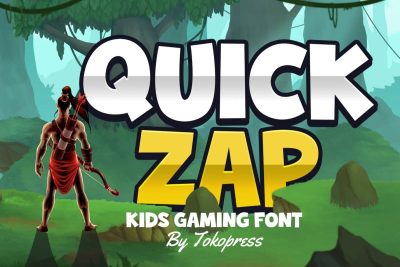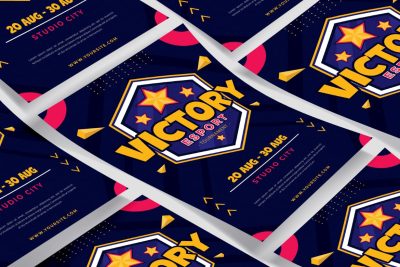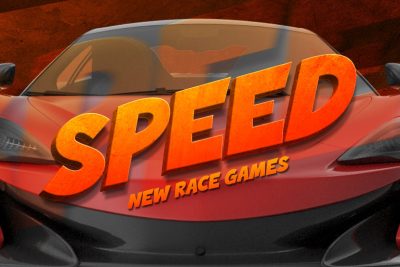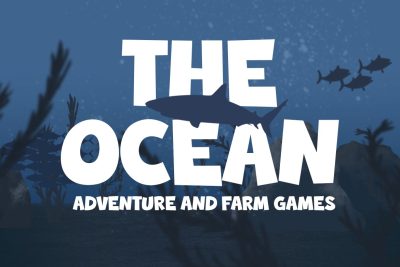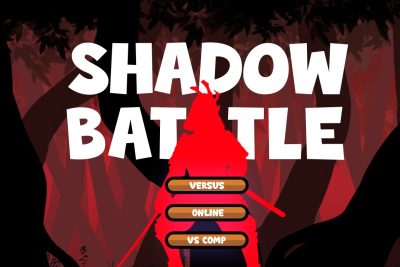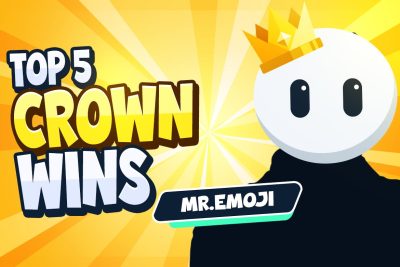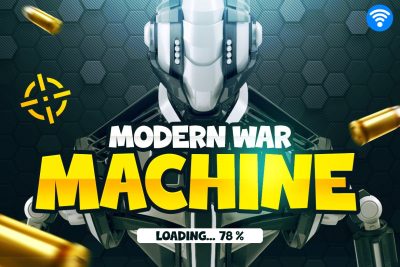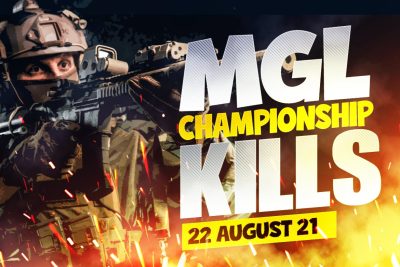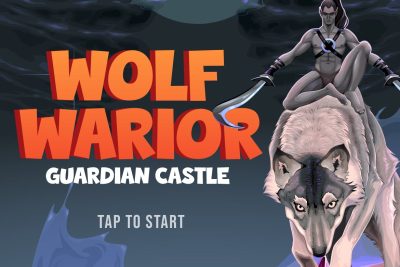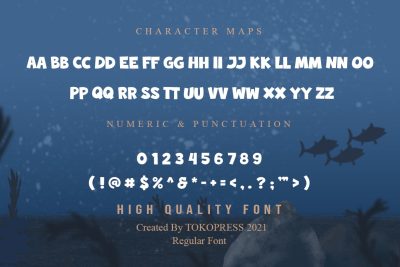
Gaming Font quick zap
Quick Zap
The Gaming Font Quick Zap is a bold and energetic typeface designed to captivate young audiences and gaming enthusiasts. Its playful, cartoonish look makes it an excellent choice for kids’ games, interactive apps, or any project that needs a burst of excitement. Whether you’re creating game titles, banners, or product packaging, Quick Zap ensures your designs pop with vibrant energy. Its smooth curves and clean structure bring a modern, friendly touch that enhances readability while keeping things visually engaging.
This gaming font blends creativity and functionality, making it versatile for both digital and print media. Its bright and dynamic appearance allows it to stand out in any context, ensuring your message reaches its target audience effectively. For designers seeking a lively, youth-oriented typeface, Quick Zap is the ultimate solution.
Why Gaming Font Quick Zap Stands Out
The Gaming Font Quick Zap delivers a perfect balance of fun and professionalism, making it ideal for projects targeting kids and young gamers. Its bold lettering grabs attention instantly, while the smooth design ensures easy readability across all platforms. This font thrives in a variety of applications, including game interfaces, advertising campaigns, and educational materials.
Quick Zap’s playful aesthetic is paired with practical features that make it adaptable to different creative needs. Its vibrant style appeals to younger audiences, while its polished design keeps it suitable for more professional environments. Whether you’re working on a game trailer, promotional video, or classroom project, this font will elevate your visuals with charm and personality.
Moreover, Quick Zap performs beautifully on various screen sizes, from mobile devices to larger formats. Its dynamic yet consistent design ensures your projects maintain their visual appeal, regardless of the medium. By choosing Quick Zap, you’re investing in a font that brings life and character to your creative work.
Unlock Creativity with Quick Zap
The Gaming Font Quick Zap empowers your designs with a youthful, energetic vibe. Its bold, modern style is perfect for projects that need to make an impact. From game logos to digital ads, this font guarantees a fun, engaging, and professional look. With Quick Zap, your audience will feel the energy and excitement your projects convey.
The bold but playful sans serif shape will bring a lot of joy to kids hearts. Suit perfectly for kids market, online games, stationary, t-shirt and school supplies font, poster, movie title, youtube covers, youtube thumbnails, social media page covers and so on…